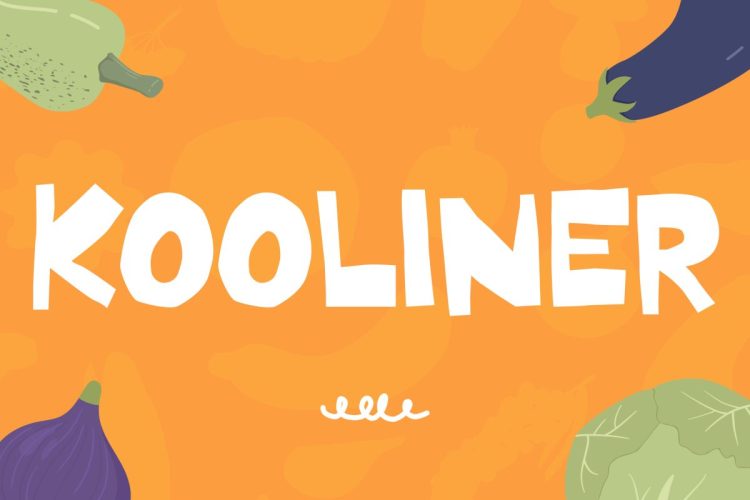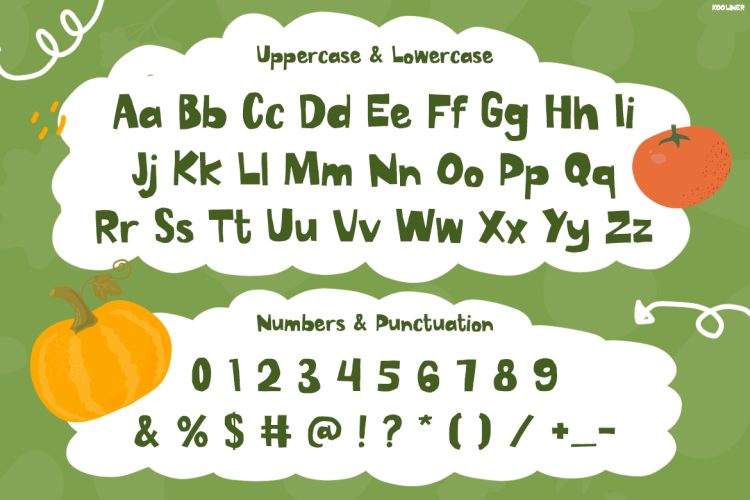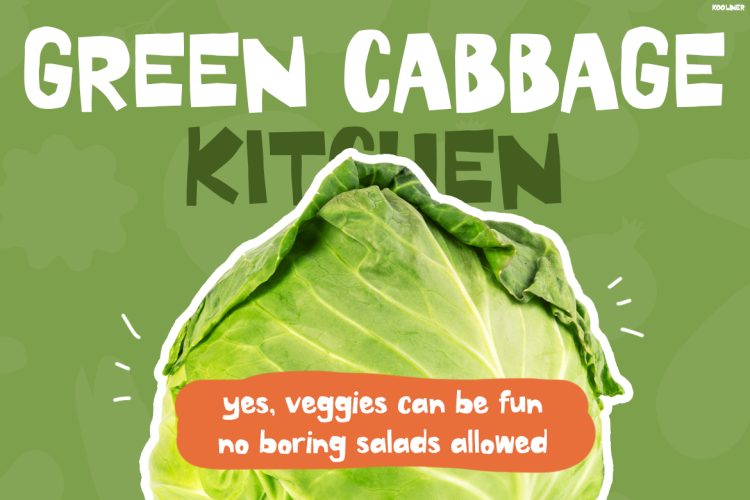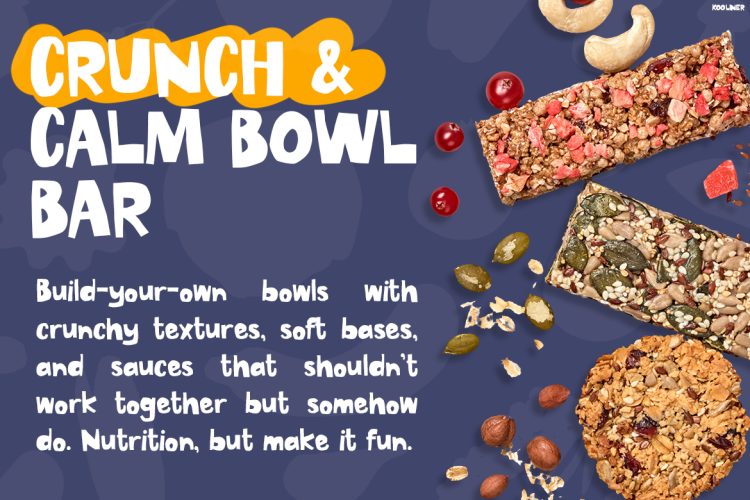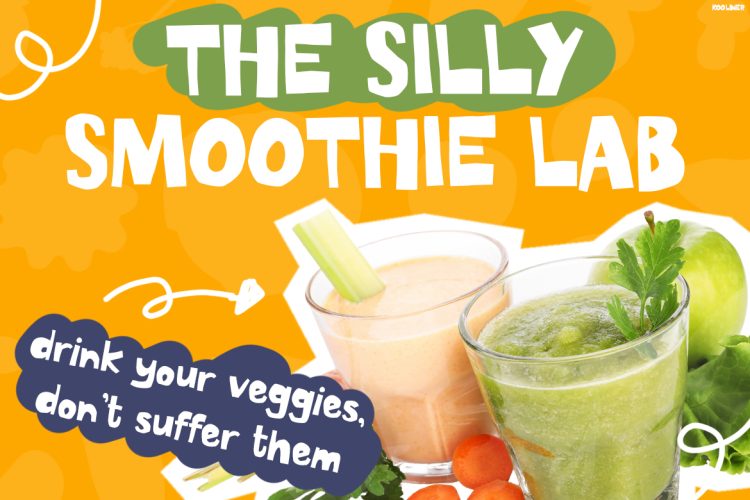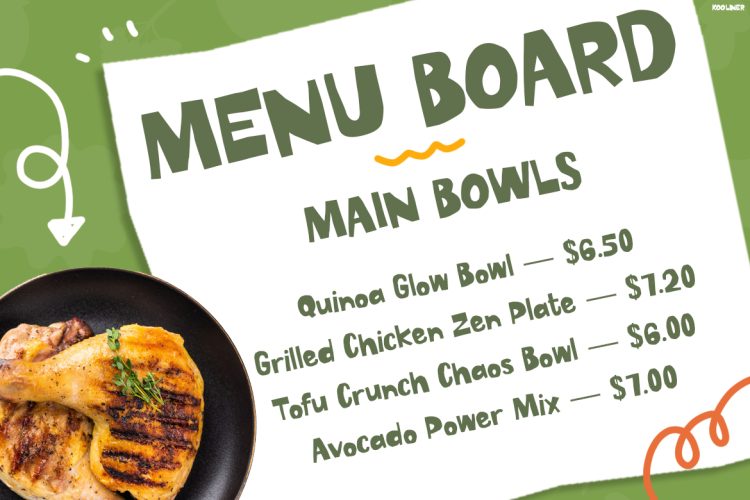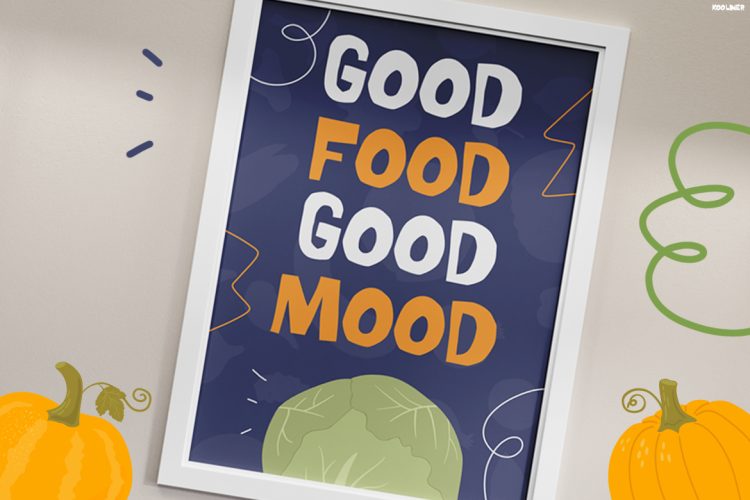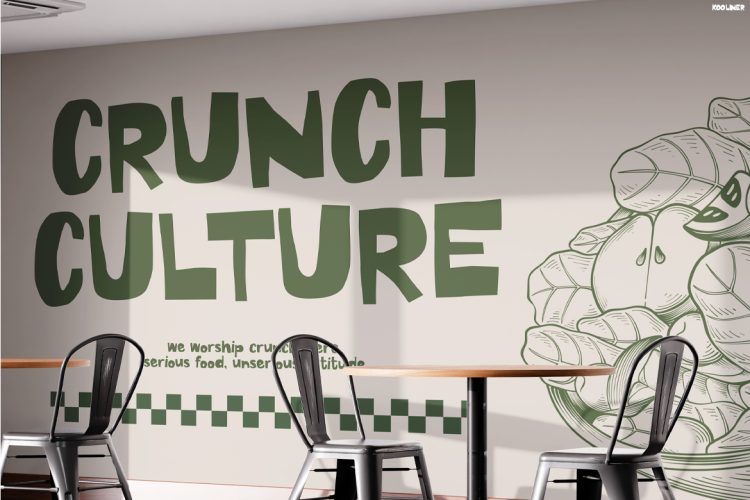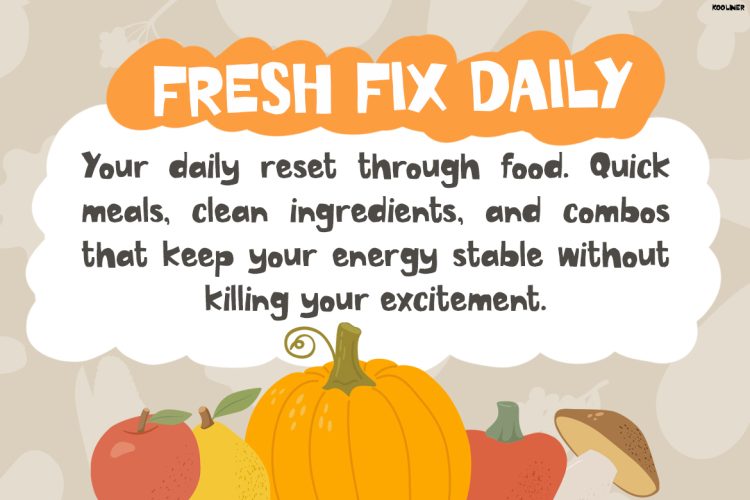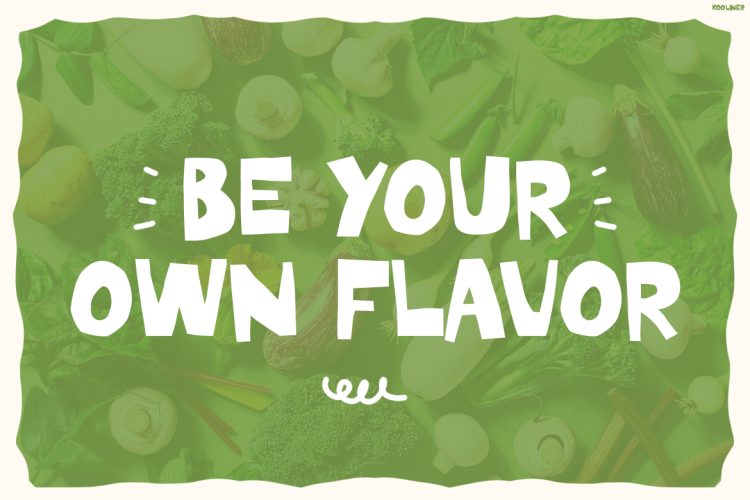
Kooliner โ Fresh, Fun & Flavor-Packed Lettering for Creative Brands
Instagram Font Kooliner is a playful display font designed to make food-related projects more engaging, memorable, and visually appealing. Not only does it feature bold handcrafted letterforms, but it also delivers a warm and friendly personality that instantly attracts attention. Moreover, its organic curves create a natural and approachable appearance. As a result, every design feels more inviting and energetic. In addition, Kooliner maintains excellent readability, making it ideal for headlines and promotional content. Furthermore, the font supports 67 languages, allowing creators to communicate with global audiences effortlessly.
Kooliner is perfect for restaurant owners, cafรฉ brands, food bloggers, content creators, marketers, and packaging designers. Whether you are creating menus, social media graphics, posters, flyers, or product packaging, this font helps your message stand out. Additionally, it works exceptionally well for food campaigns and lifestyle branding. Meanwhile, its playful style keeps designs feeling fresh and approachable. Consequently, brands can build stronger visual connections with their audience.
Why Choose Kooliner?
- Bold & Playful Display Style
- Handcrafted Organic Letterforms
- Excellent Headline Readability
- Perfect for Food & Lifestyle Branding
- Great for Social Media Content